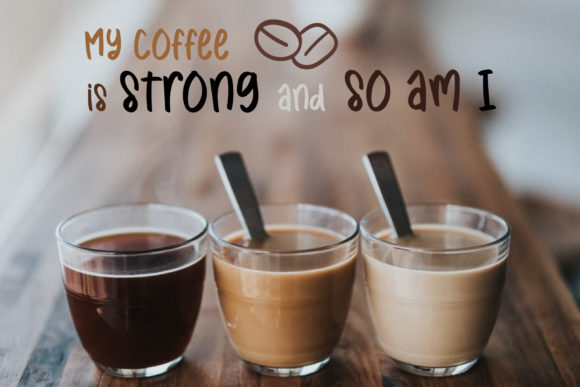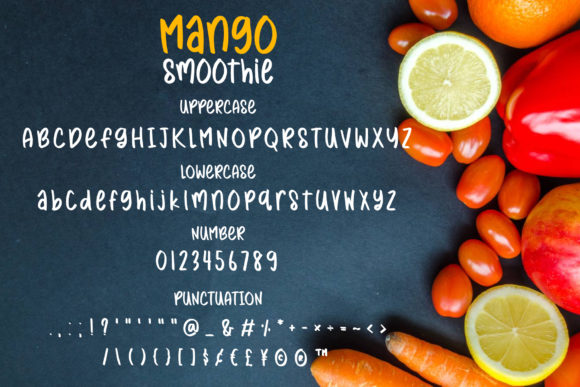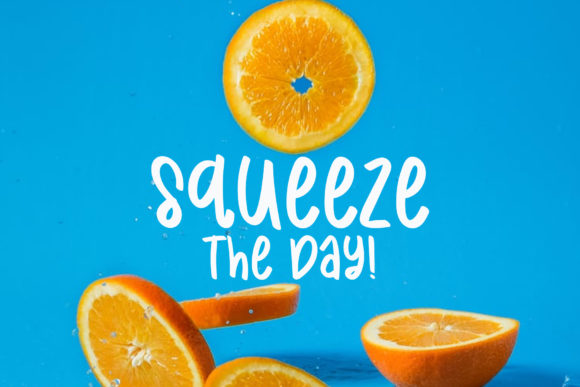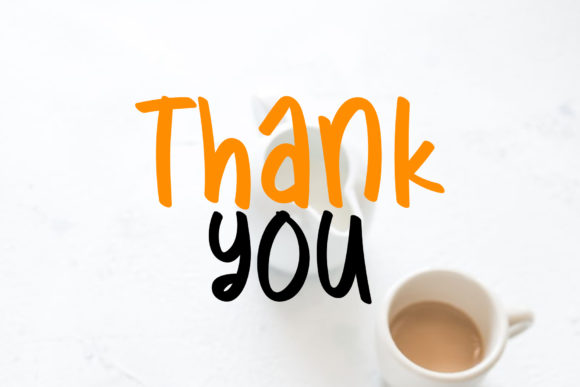
Introduction to Mango Smoothie Font
Have you ever found yourself staring at a blank canvas, trying to bring your creative project to life, only to be held back by the perfect font? For designers, the right font can make all the difference between a mediocre design and a masterpiece. And that’s exactly where the Mango Smoothie Font comes in – a trendy and relaxed handwritten font that’s sure to elevate your design to the next level.
With its neat and casual feel, the Mango Smoothie Font is the perfect addition to any design resource. Whether you’re working on a personal project or a professional design, this font is sure to bring a touch of personality to your work. And the best part? It’s a free download, making it accessible to designers of all levels.
But what really sets the Mango Smoothie Font apart is its high-quality design, complete with a transparent background that makes it easy to layer and manipulate. Whether you’re looking to add a pop of color or create a cohesive brand identity, this font is the perfect tool for the job.
Key Features of Mango Smoothie Font
- Unique and modern design with a refreshing twist, perfect for creative projects.
- High-quality font with transparent background, ideal for use as a design resource.
- Includes multiple font styles and weights, allowing for versatility in your design.
- Compatible with a wide range of resolutions, including 72 dpi and 300 dpi.
- Perfect for use in digital design, such as web graphics, social media, and mobile apps.
- Downloadable in both uppercase and lowercase letters, making it suitable for creative projects.
Honest Review: Mango Smoothie Font
I recently stumbled upon the Mango Smoothie Font and I must say, it’s been a game-changer for my creative projects. This font is perfect for those who want to add a touch of playfulness and whimsy to their designs.
Here are some things that work well with the Mango Smoothie Font:
- ✨ The font is incredibly versatile and can be used for a wide range of creative projects, from logos to posters.
- ✨ The high-quality design ensures that the font looks great on both light and dark backgrounds.
- ✨ The transparent background option allows for seamless integration with other design elements.
- ⚠️ The font may not be suitable for formal or professional projects, as it can come across as too playful.
Overall, I’m really impressed with the Mango Smoothie Font. It’s a great design resource that can add a lot of personality to your projects. I would definitely recommend it to anyone looking for a fun and playful font.
Mango Smoothie Font is perfect for creative projects, such as designing menus, flyers, and social media graphics. Its unique style and transparent background make it an ideal choice for modern and trendy designs. With its high-quality design and free download, you can’t go wrong with Mango Smoothie Font for your next project.